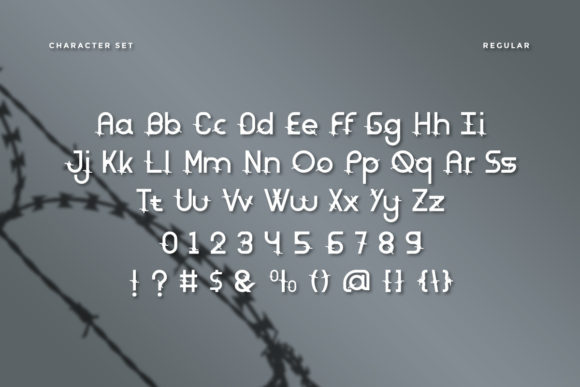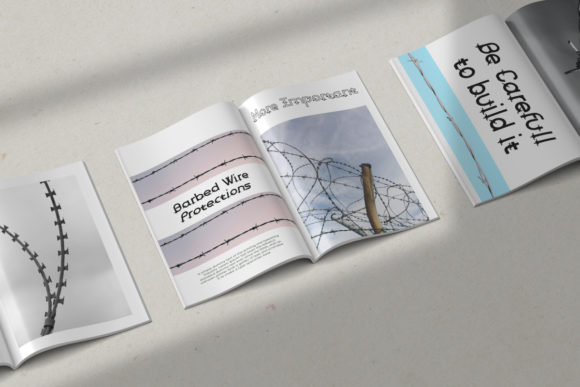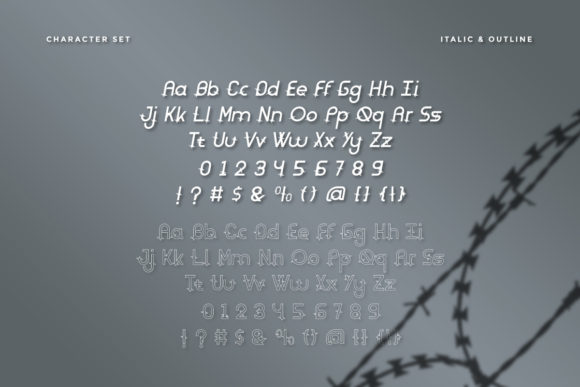
Introduction to Rounded Barbed Font
Remember that moment when you’re brainstorming ideas for a creative project and you stumble upon the perfect font? It’s like a spark of inspiration hits you, and suddenly, your design comes to life. For many designers, that moment is often triggered by discovering a unique and modern font like the Rounded Barbed Font.
This stylish display font has been gaining popularity among designers and crafters alike, and it’s easy to see why. With its sleek, rounded edges and barbed details, the Rounded Barbed Font adds a touch of sophistication to any design. Whether you’re working on a digital project, creating greeting cards, or crafting a presentation, this font is sure to elevate your work.
As a valuable design resource, the Rounded Barbed Font offers a high-quality, versatile option for designers looking to add some flair to their projects. Plus, with its transparent background feature, you can easily customize it to fit your design needs.
Key Features of Rounded Barbed Font
- High-quality font design with a unique, rounded barbed aesthetic, ideal for creative projects.
- Perfect for designers seeking a distinctive, creative font to add a touch of personality to their work.
Honest Review: Rounded Barbed Font
I recently came across the Rounded Barbed Font, and I must say, it’s been a great addition to my design resource library. This font offers a unique blend of vintage and modern elements, making it perfect for a variety of creative projects.
- ✨ Unique design: The Rounded Barbed Font has a distinctive look that sets it apart from other fonts. Its rounded edges and barbed details make it perfect for adding a touch of elegance to your designs.
Overall, I’m impressed with the Rounded Barbed Font. Its unique design and high-quality formats make it a valuable addition to any design resource library. While there are a few limitations, I believe the benefits far outweigh the drawbacks.
Rounded Barbed Font
Rounded Barbed Font is a unique and creative design resource perfect for adding a touch of elegance to your next project. With its high-quality and intricately detailed design, this font is ideal for designers looking for a distinctive and eye-catching typography.
Tips for Getting the Most Out of Rounded Barbed Font
To get the most out of Rounded Barbed Font, try experimenting with different font sizes, colors, and combinations. You can also use it in conjunction with other design elements, such as shapes and graphics, to create a unique and eye-catching design.
Common Use Cases for Rounded Barbed Font
Rounded Barbed Font is perfect for a variety of creative projects, including wedding invitations, birthday cards, and holiday cards. It’s also a great choice for designers working on branding and marketing materials, such as logos and business cards.